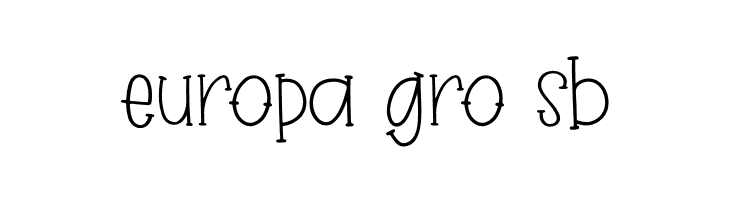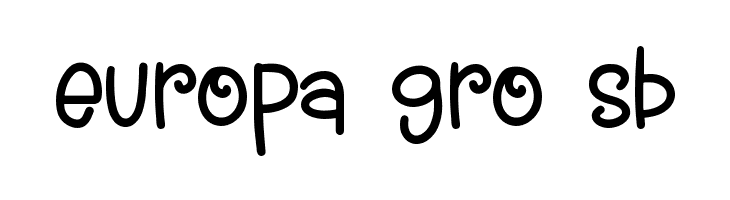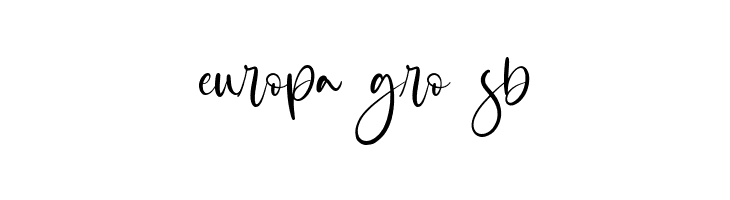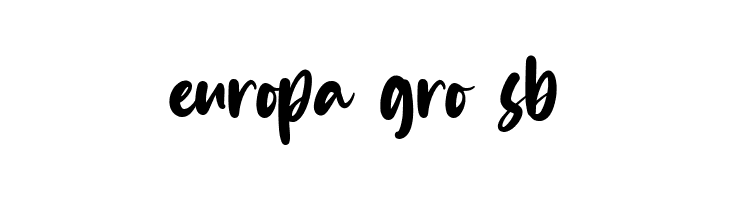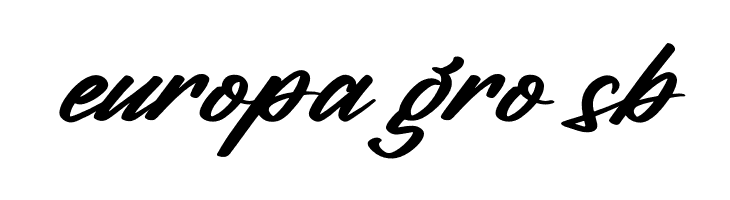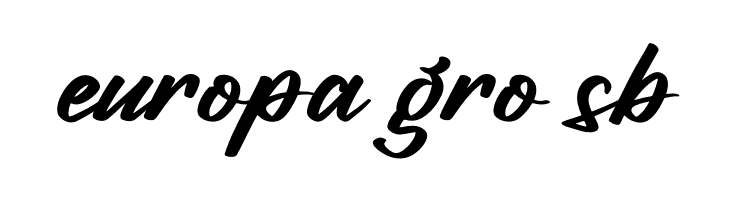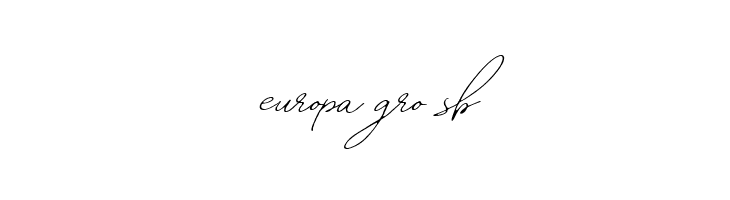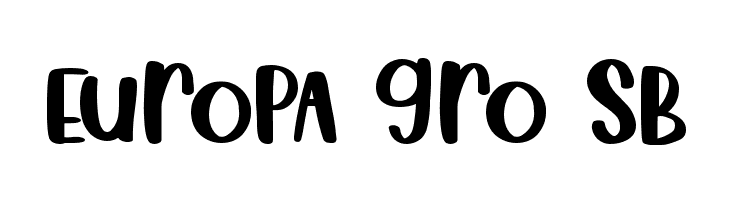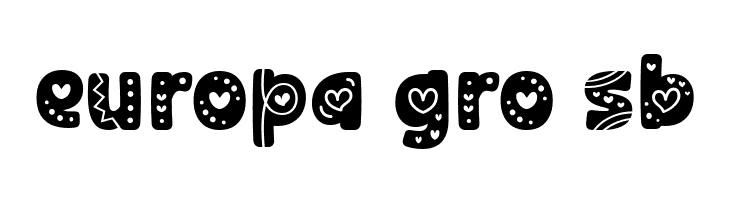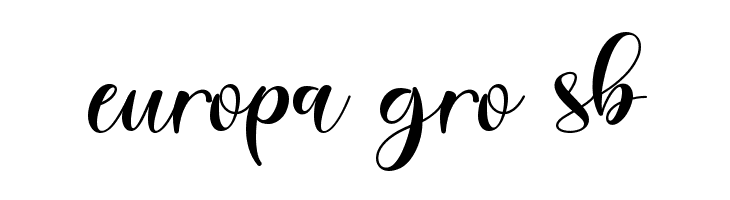
• summer miracle
A lively and expressive handwritten font with fluid strokes and dynamic style.
• Summer Monogram
( Fonts by Yoga Letter )
A whimsical and elegant script font with flowing, interconnected letters and decorative swirls.
• Summer Monogram (Monogram)
( Fonts by Yoga Letter )
A decorative font with summer-themed elements like palm trees and waves.
• Summer Style Demo
( Fonts by Yoga Letter )
• Summering - personal use
( Fonts by Letterara )
A playful, bold, and whimsical font with a hand-drawn appearance.
• SummerVibes
A playful, handwritten font with a casual and energetic style.
• Sunday And Monday
( Fonts by Letter Art Studio )
A playful, bold font with a hand-drawn, casual style.
• Sunday Bridge
A fluid, elegant handwritten font with connected letterforms and a casual style.
• Sunday Buttercup
A playful, bold handwritten font with a casual and organic style.
• Sunday Christmas
Ornate script font with festive, swirling strokes.
• Sunflora
A playful, handwritten font with a whimsical and friendly style.
• Sunny Beach
( Fonts by Dm Letter Studio )
Playful and bold handwritten font.
• Sunny Love
A playful, decorative handwritten script with floral motifs.
• Sunny Love Italic
A whimsical script font with floral accents and flowing cursive style.
• Sunrose